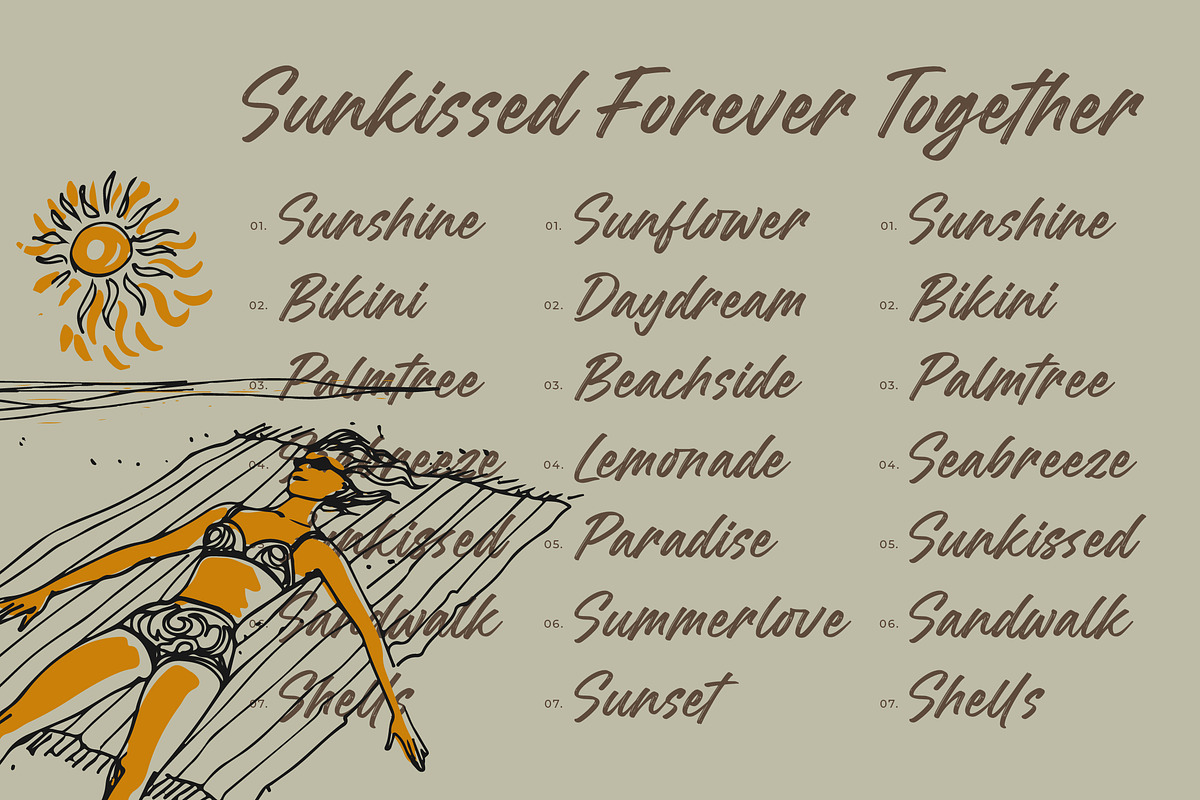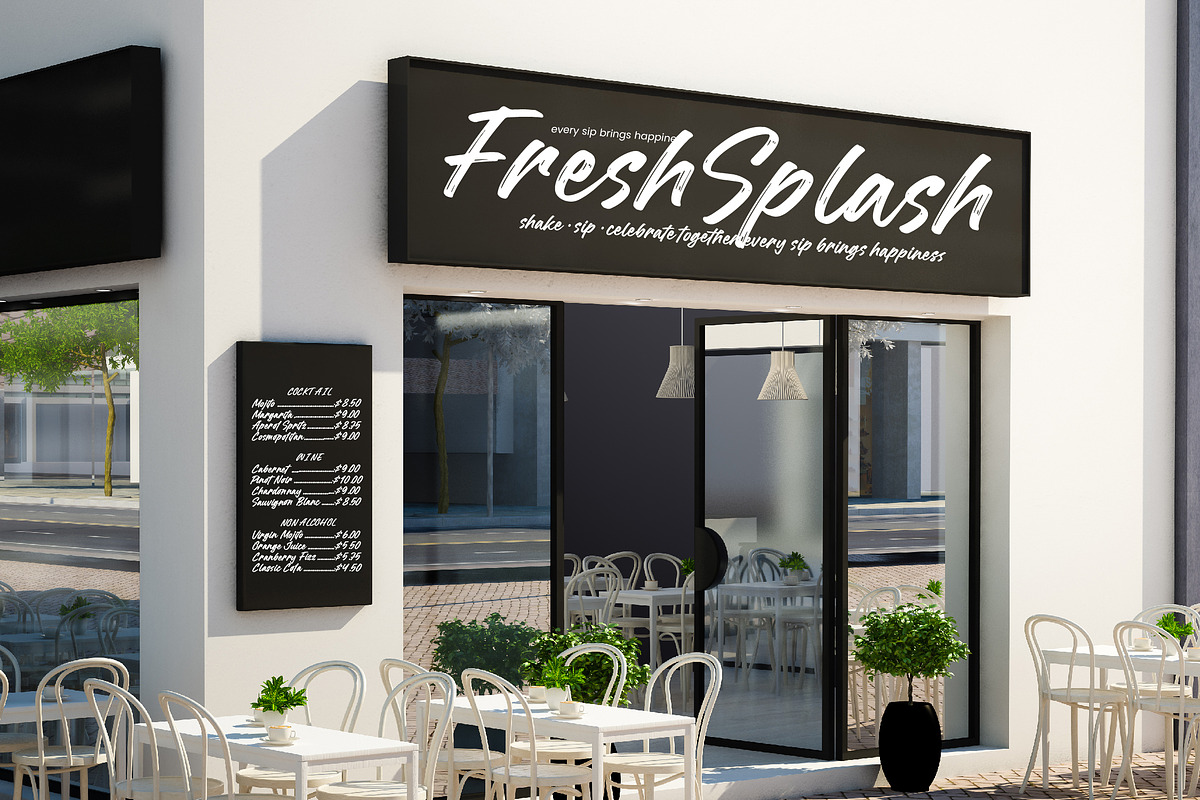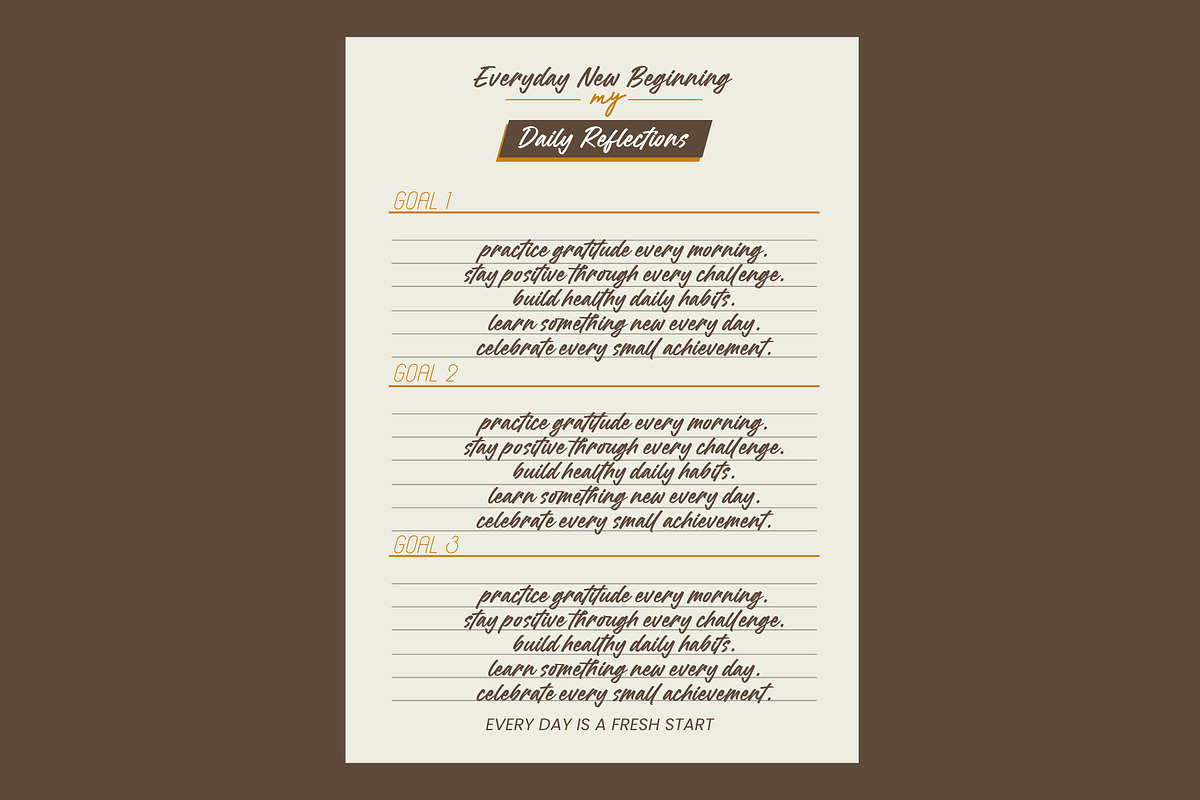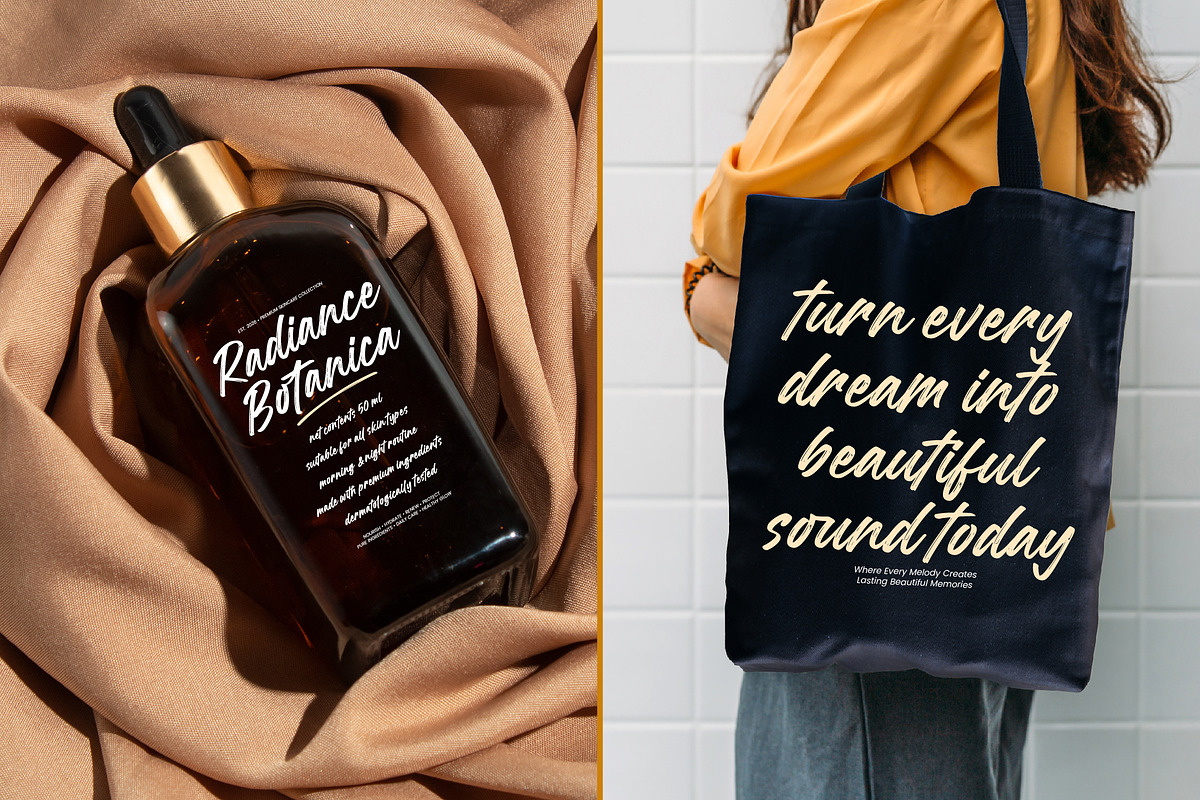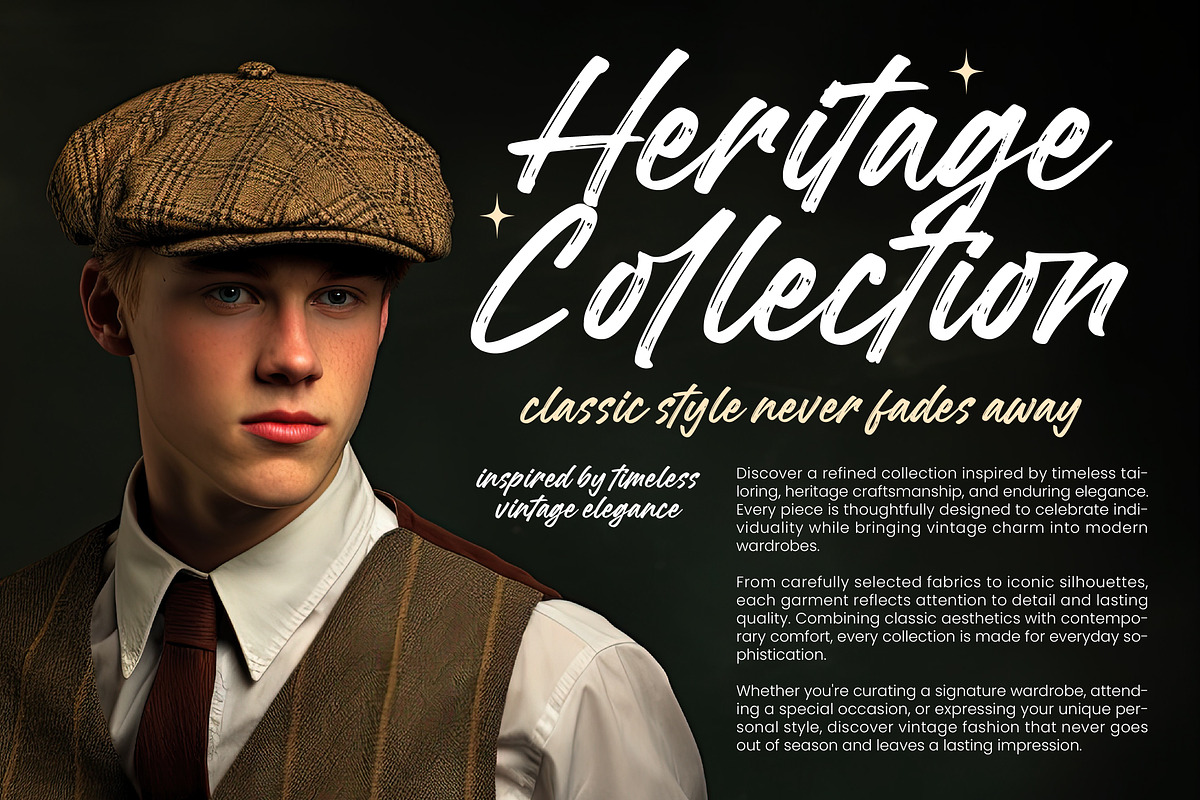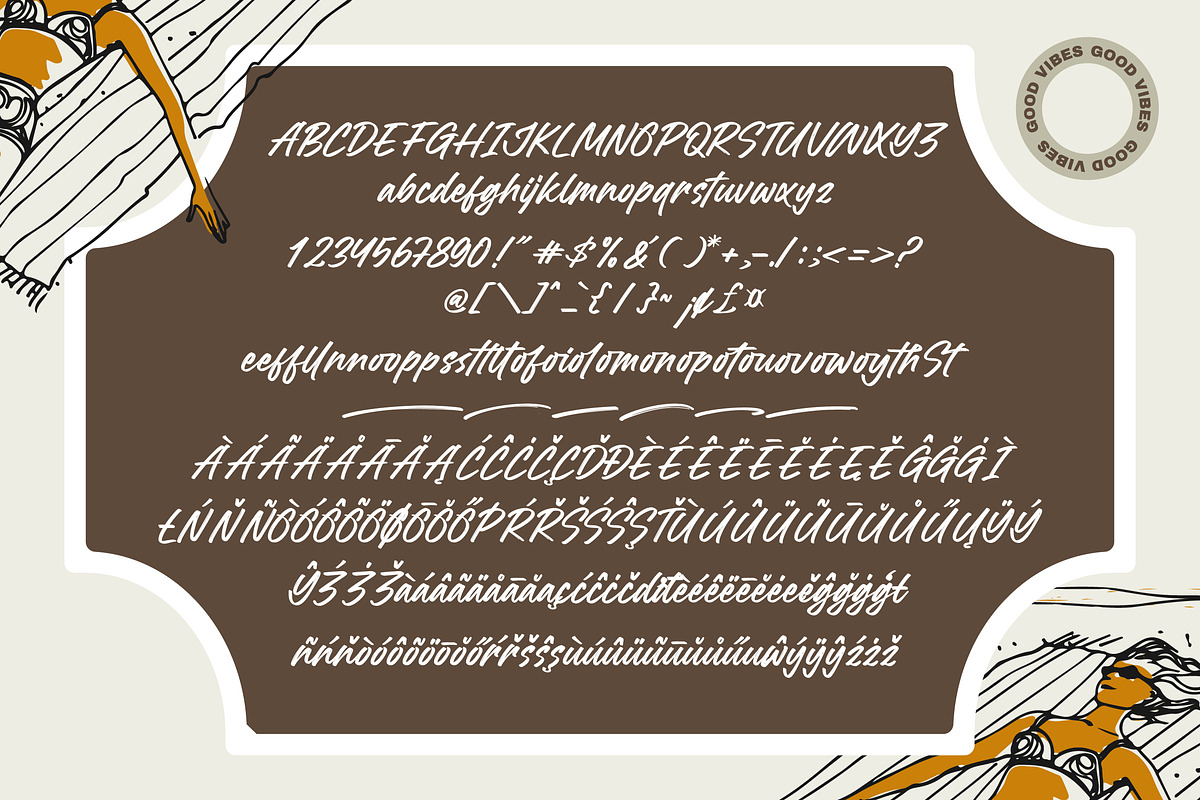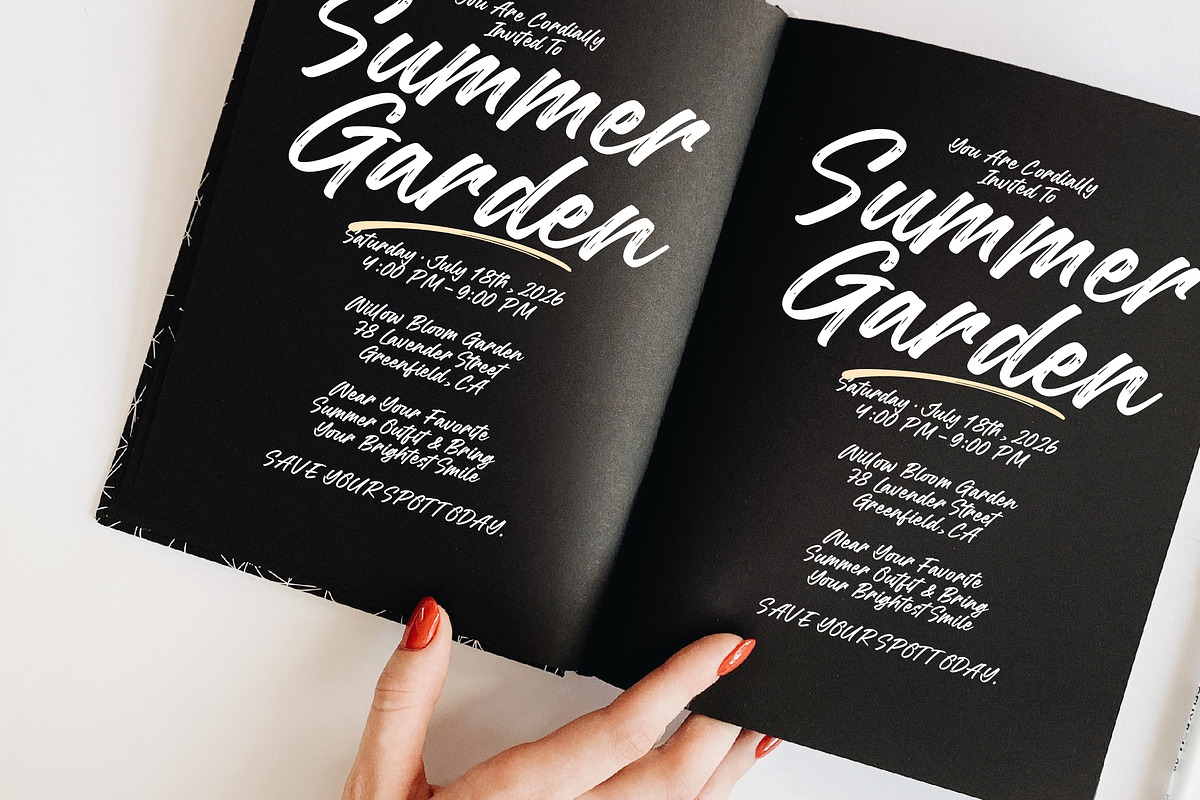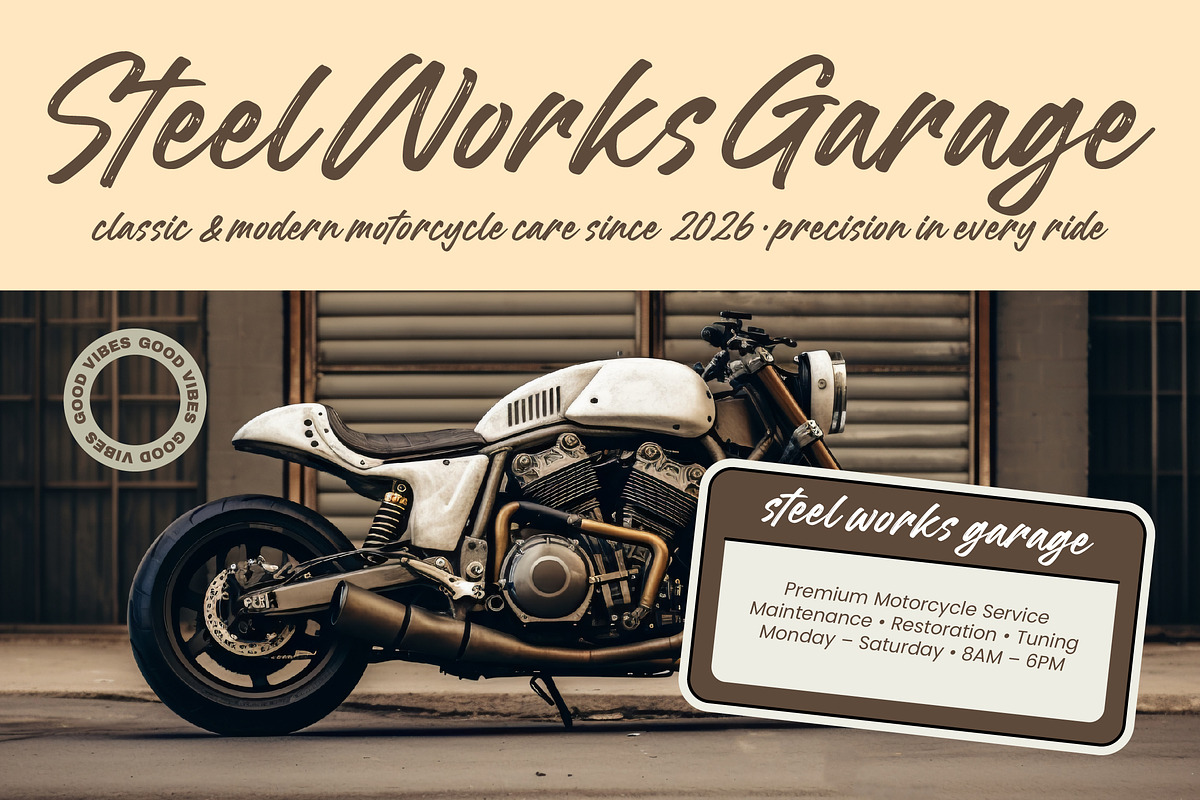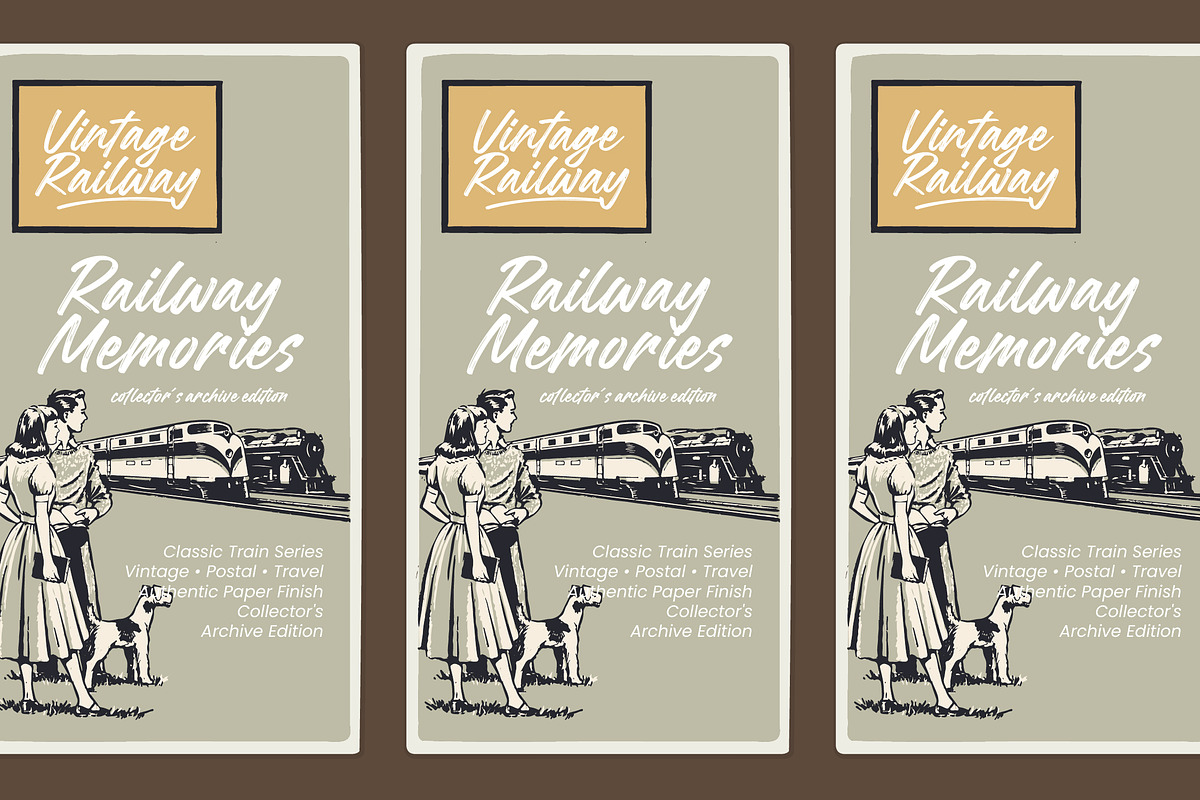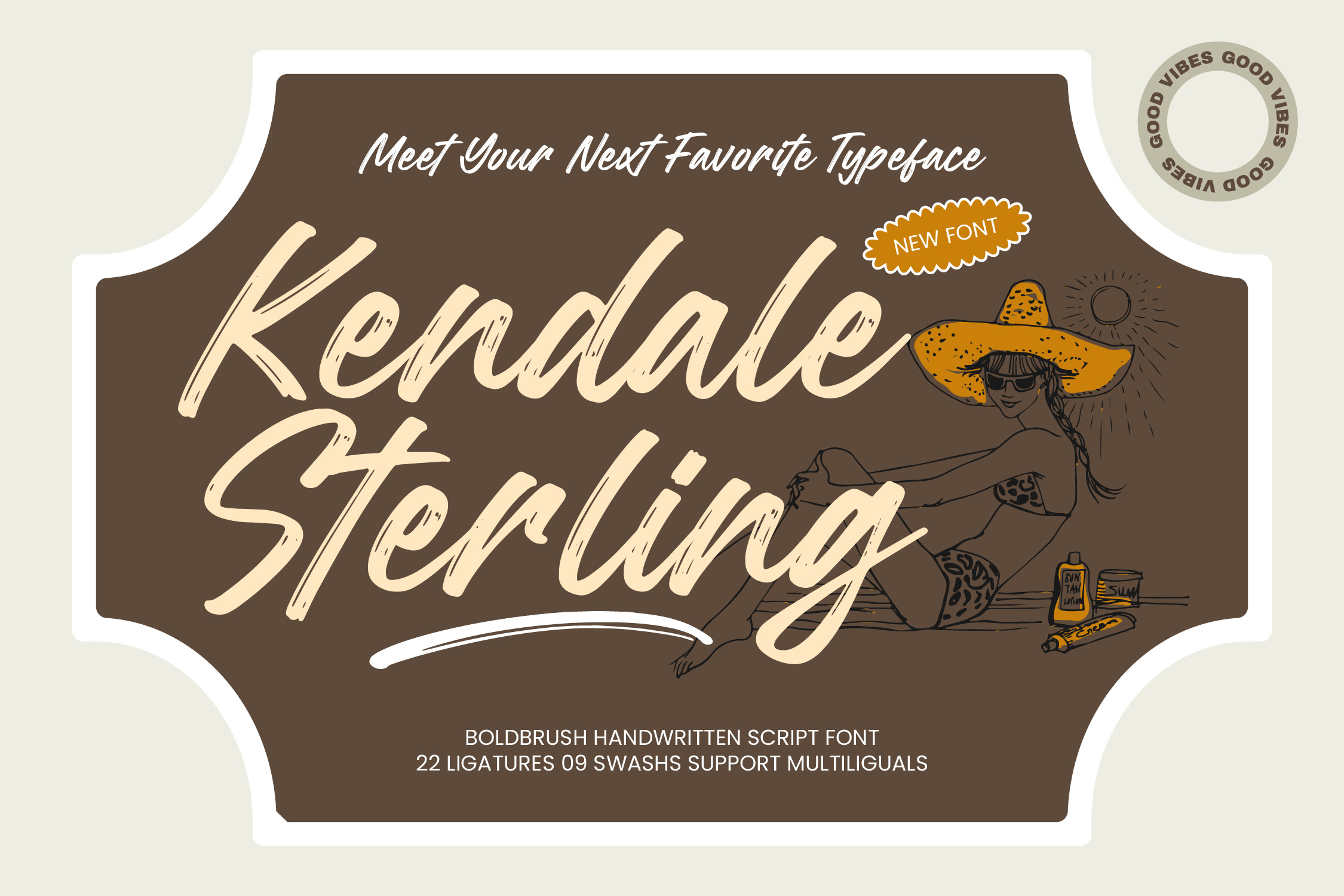
Kendale Sterling Bold Brush Font
Kendale Sterling - Bold Brush Handwritten Font , Elevate your creative vision with Kendale Sterling - Bold Brush Handwritten Font, a powerhouse typeface designed to command attention. This authentic dry-brush script captures a raw, energetic aesthetic that blends modern street style with a refined artistic touch. Its bold strokes and handcrafted texture offer a sense of immediacy and personality, ensuring your headlines vibrate with organic energy and unmatched visual impact.
Perfect for high-impact projects, Kendale Sterling - Bold Brush Handwritten Font is the ultimate choice for luxury branding, premium packaging, and lifestyle photography. Whether you are crafting a dynamic logo, designing apparel graphics, or developing social media content that needs to stand out, this font provides the necessary expressive edge. It is perfectly suited for editorial design, poster art, and creative advertising where a human touch is essential.
With its extensive multilingual support, Kendale Sterling - Bold Brush Handwritten Font adapts seamlessly across global markets, making it incredibly versatile for international projects. This comprehensive character set ensures your brand voice remains consistent regardless of the linguistic landscape. By offering global accessibility, this font allows designers to bridge cultures while maintaining the distinctive personality of their original typographic identity.
Unleash your creative potential with a tool that combines sophisticated charm with raw power. Kendale Sterling - Bold Brush Handwritten Font comes packed with smart ligatures and artistic swashes, allowing for bespoke customizations in every layout. Transform your visual storytelling today with this highly persuasive and professionally crafted typeface, and give your designs the competitive advantage they deserve in a crowded marketplace.